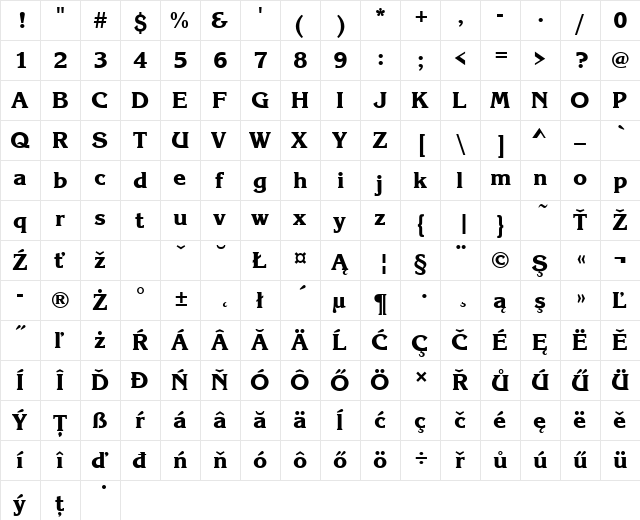
KorinnaItcTEEExtBol Regular
Design Context for KorinnaItcTEEExtBol Typeface
KorinnaItcTEEExtBol is a composed and adaptable typeface that performs quietly and consistently across a wide range of design contexts.